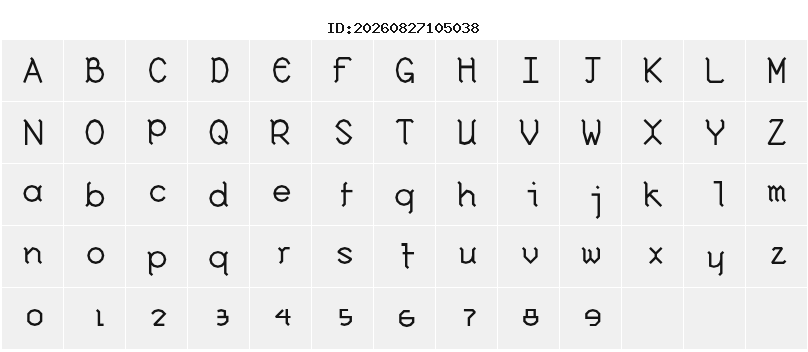
• Font Name: 2PTK675
• Full Font Name: 2PTK675
• PostScript Name: 2PTK675
• Character Count: 232
• Copyright: 2PTK675 . Copr.1995. [T-26] Chicago, Il. Jimmy Chen-Designer.
About 2PTK675.ttf
2PTK675.ttf is a modern, elegant sans-serif font designed for ultimate readability and visual harmony. Perfect for branding, headlines, web design, and print materials.